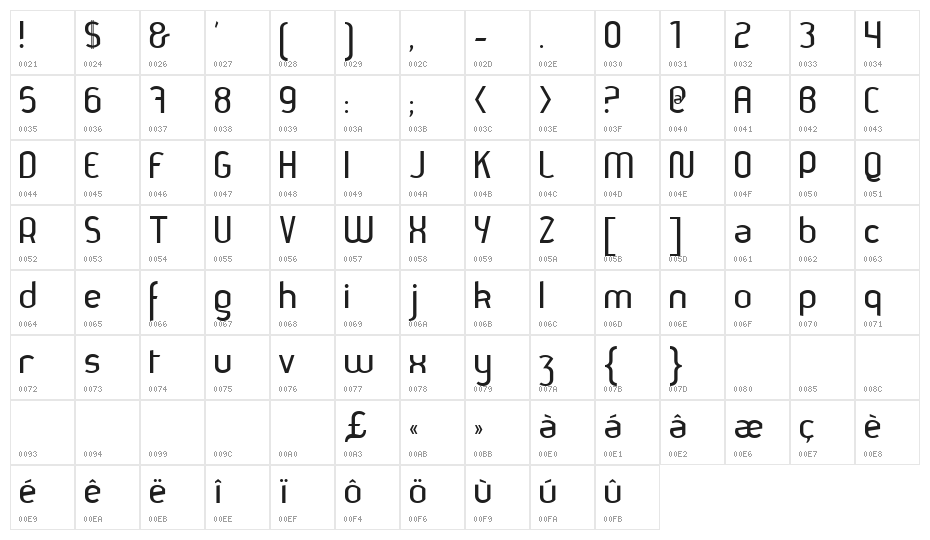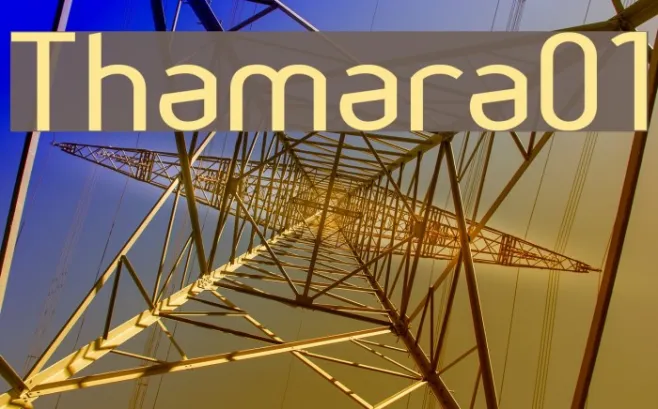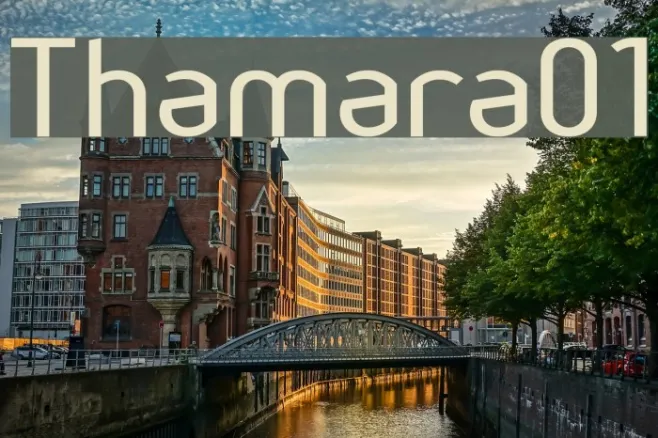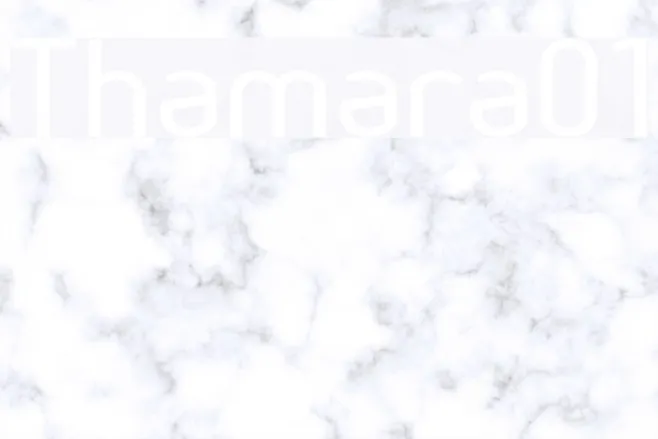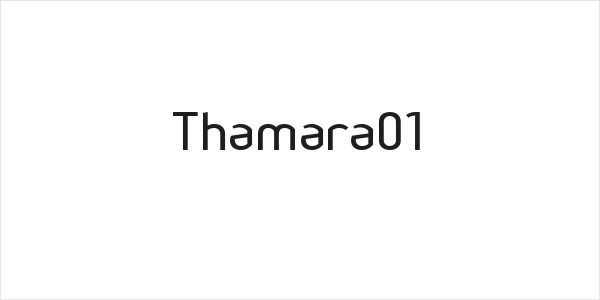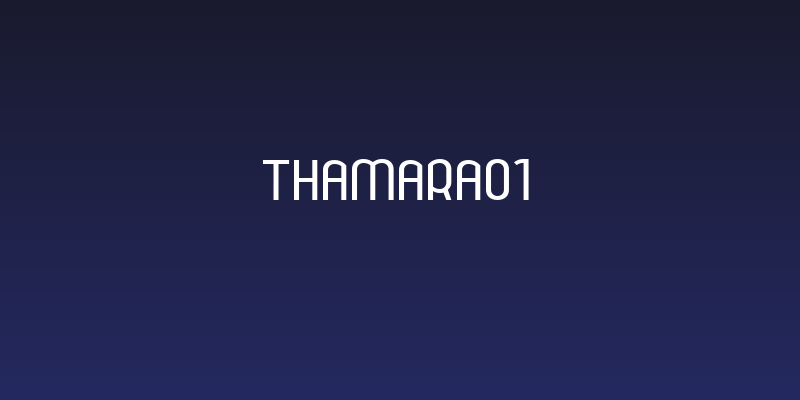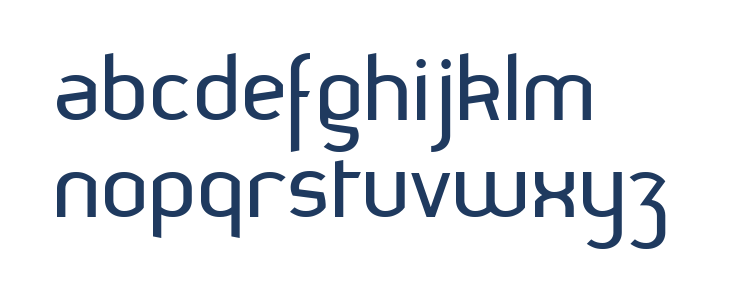
Thamara01 Font
Thamara01 Description
This font features a modern and clean sans-serif style with rounded edges, giving it a friendly and approachable appearance. The characters are evenly spaced, providing a balanced and harmonious look. The uppercase and lowercase letters maintain a consistent height, contributing to its uniformity. Numerals are clear and distinct, making them easy to read. The special characters are well-integrated, matching the overall aesthetic of the font. Its simplicity and clarity make it versatile for various design applications.
| Proposed Projects | Ideal for branding, web design, user interfaces, and advertising materials. |